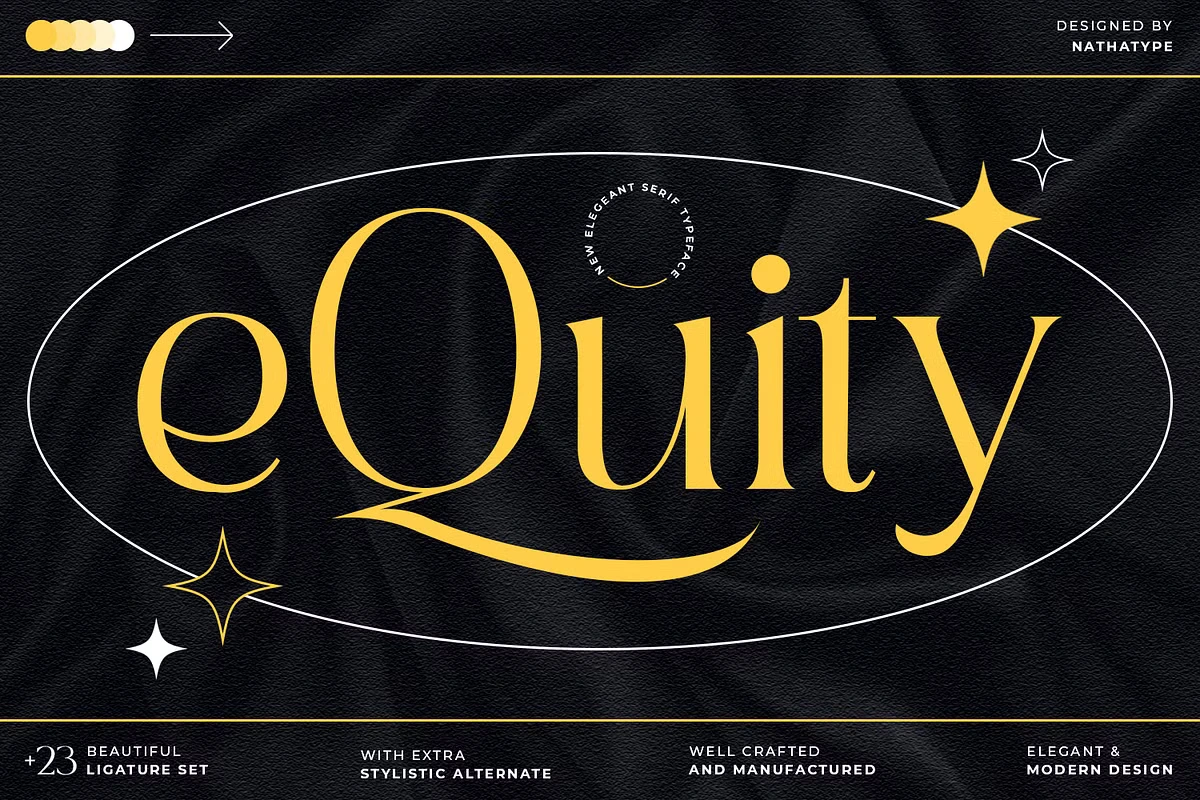
EQuity – impressive but elegant serif font for present days that is executed in pure modernistic style. It is highly suitable for anyone designing logos, wedding invitation cards, gift tags and designs, photographers, watermark for businesses, product packaging and labeling and quotations. It does not yield cute, playful, or even hilariously comical logos in the way that some other fonts do. Only high-end, upscale, sophisticated Branding Design.
Our font always have the Multilingual Support option added In order to ensure that our branding becomes transcend national. Use this great text style to motivate your audience, clients or guests.